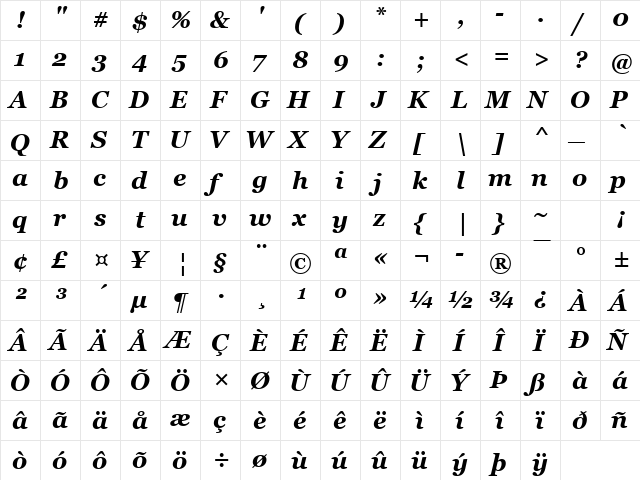
Georgia Bold Italic
Design Context for Georgia Typeface
Georgia takes a measured approach to typography — its balanced proportions and neutral character make it a reliable workhorse for both digital and print work. The slanted form adds forward momentum and visual energy. The heavy weight commands attention and anchors typographic hierarchies.
Pro Tip: Use Georgia for emphasis, pull quotes, and subheadings where its slanted energy can add rhythm to the layout.